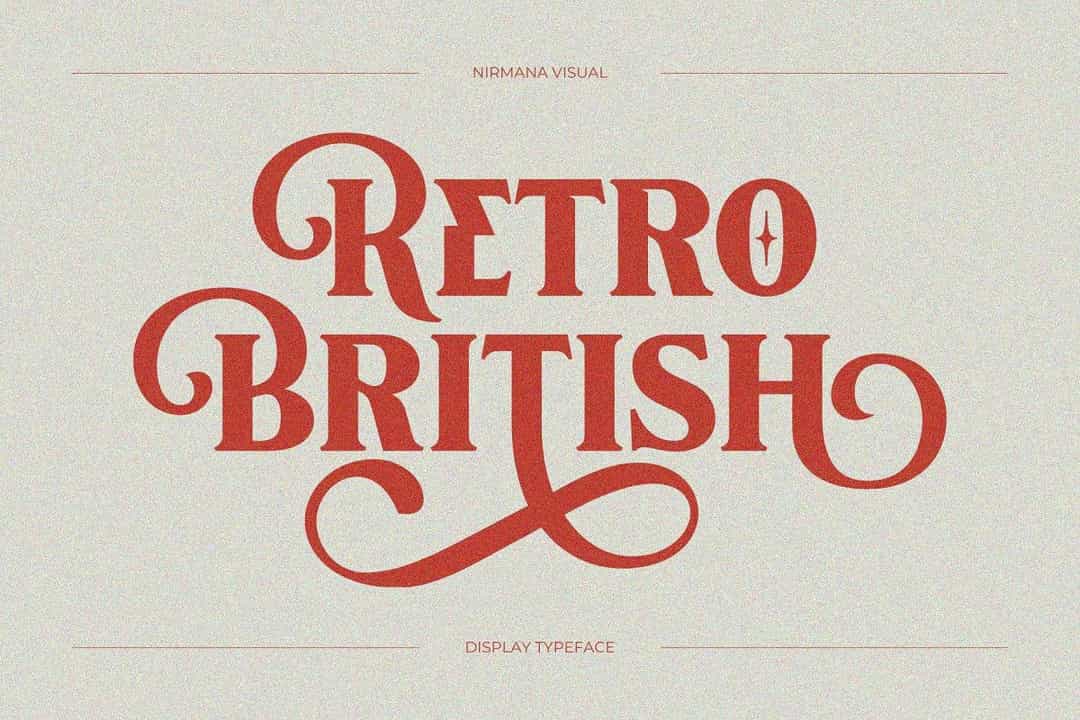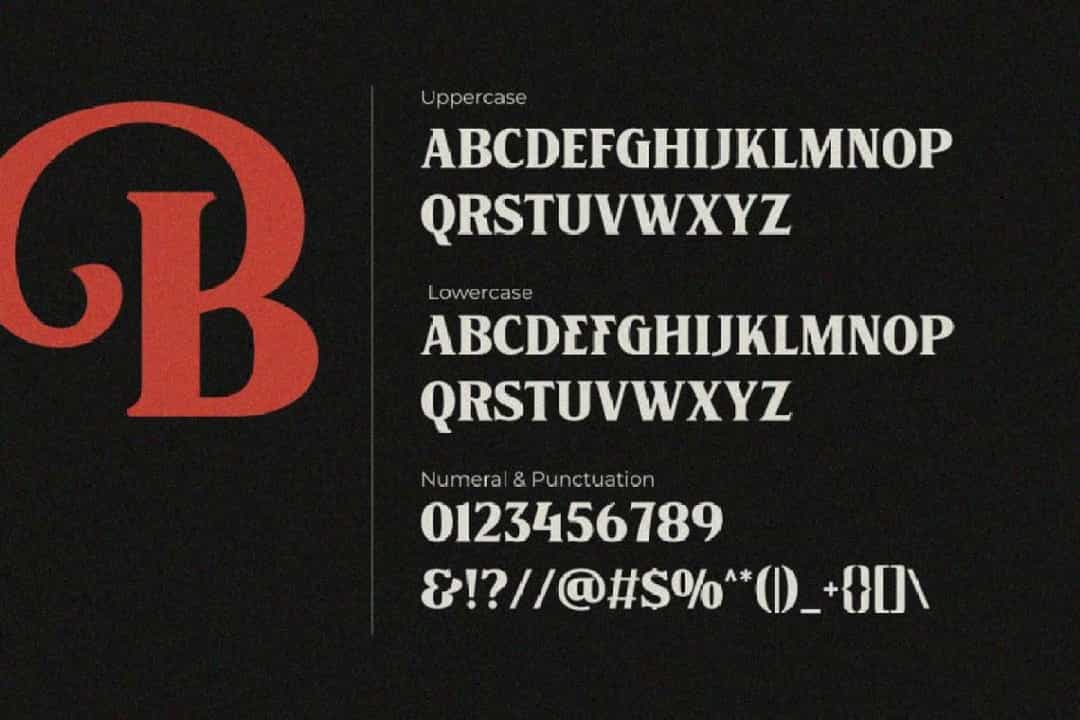
Retro Britishis an elegant vintage serif font developed by Nirmana Visual that exudes classic charm with its elegant curves and stunning ligatures that help give work an authentic and appealing appearance. It can be used across various applications.